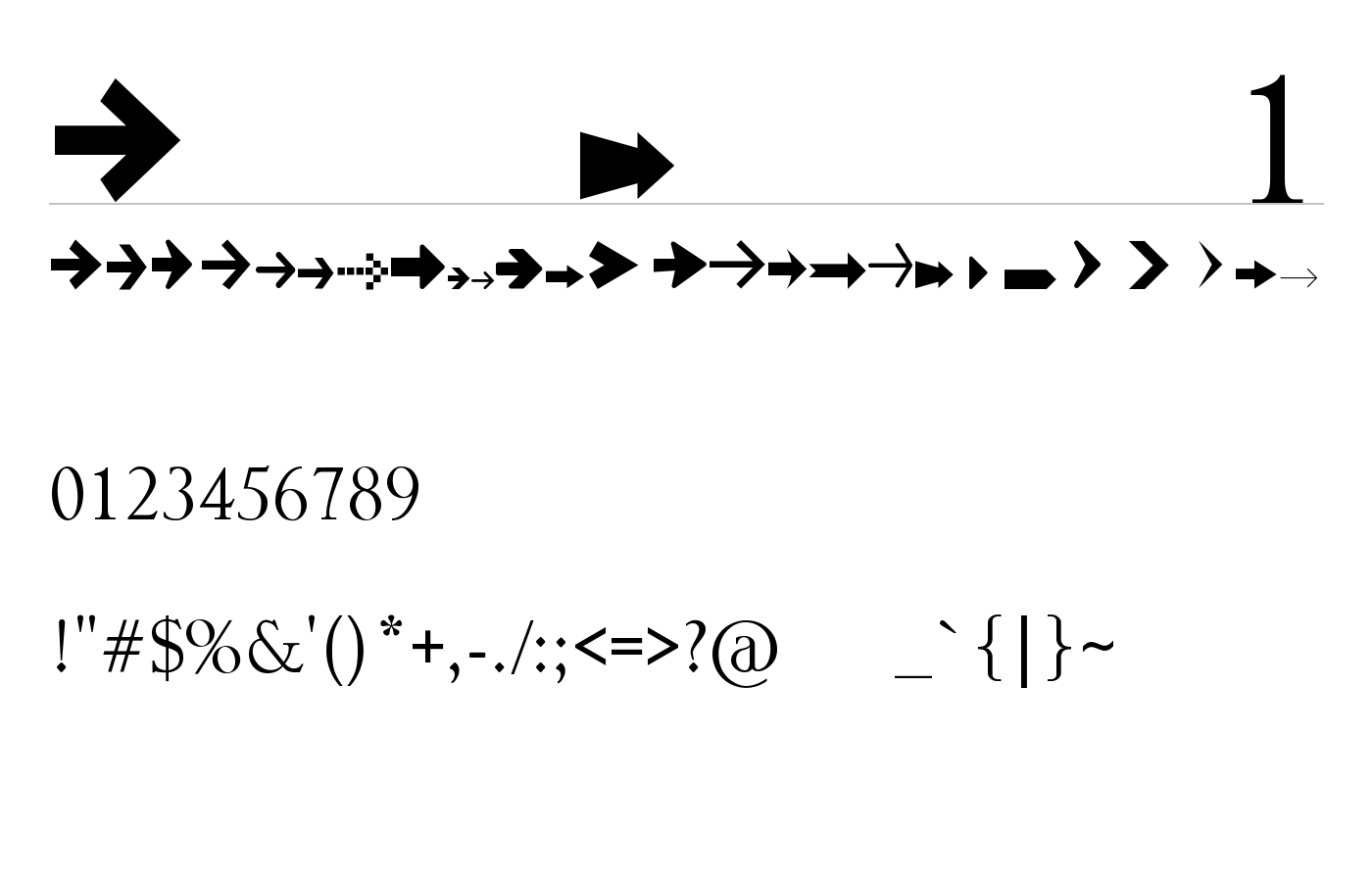
Arrow Symbols 1 Font is a unique symbol font featuring a diverse collection of arrow designs, from bold, solid shapes to sleek and simple outlines, making it versatile for various design needs. Its accompanying numeric and punctuation characters adopt a classic, elegant serif style, offering a refined contrast to the geometric arrows. This font is perfect for adding clear directional cues and decorative elements in infographics, signage, web interfaces, and creative projects where visual guidance and style are key.
Arrow Symbols 1 Font